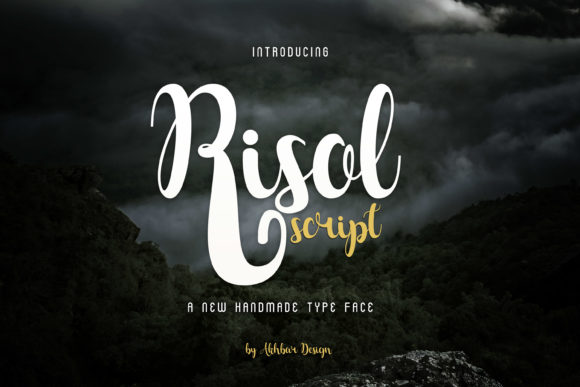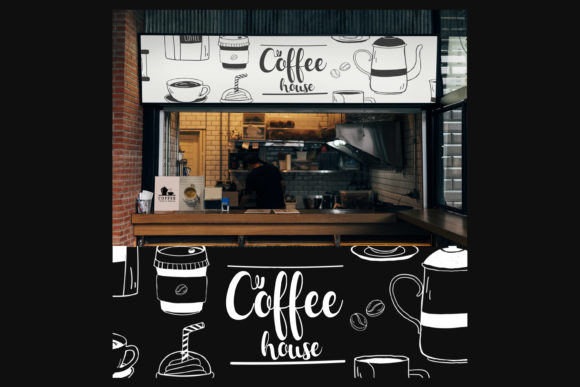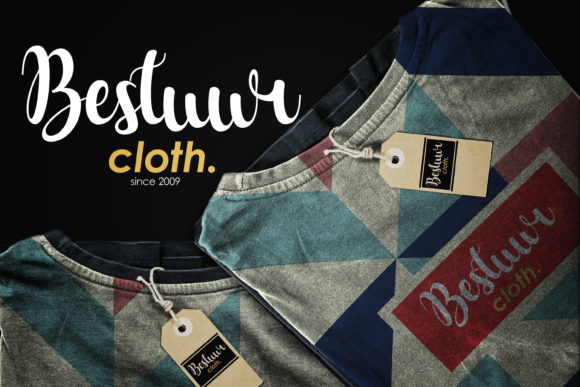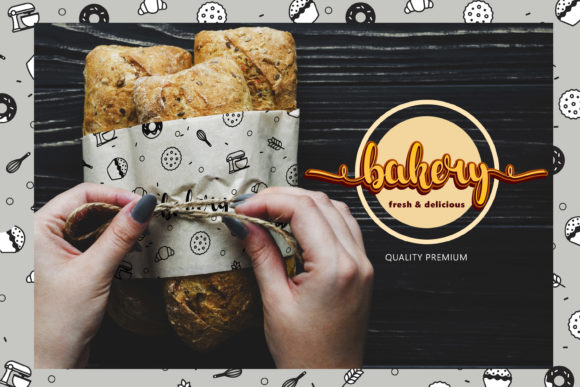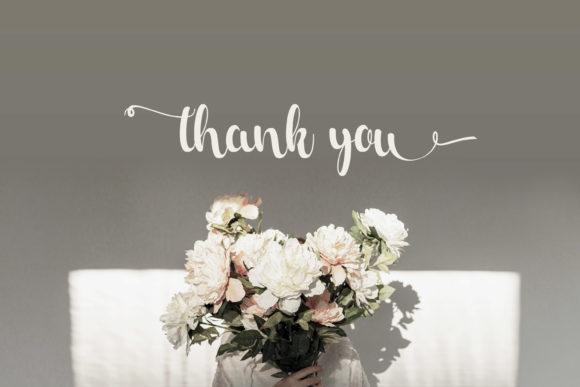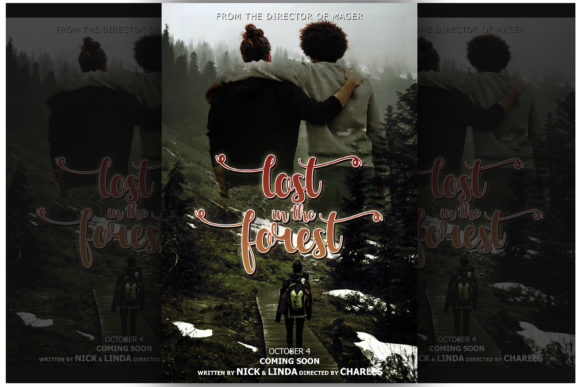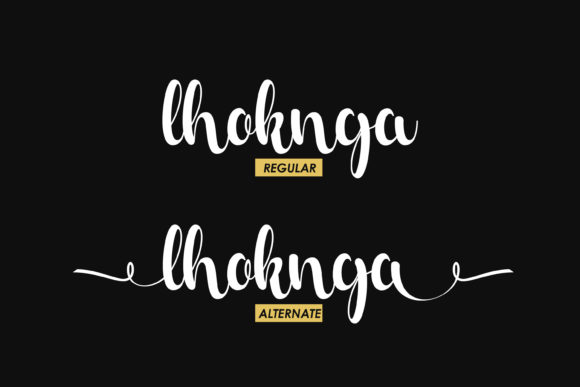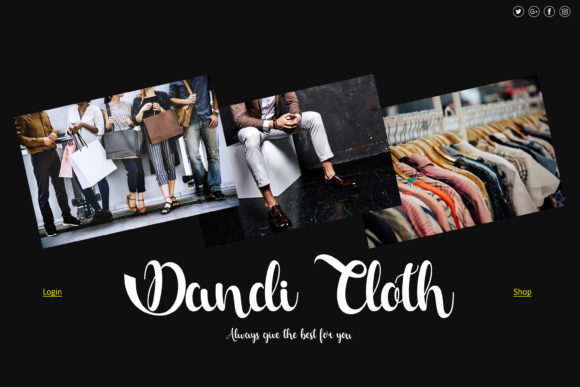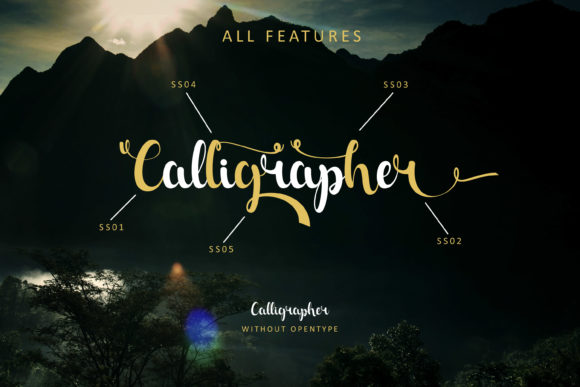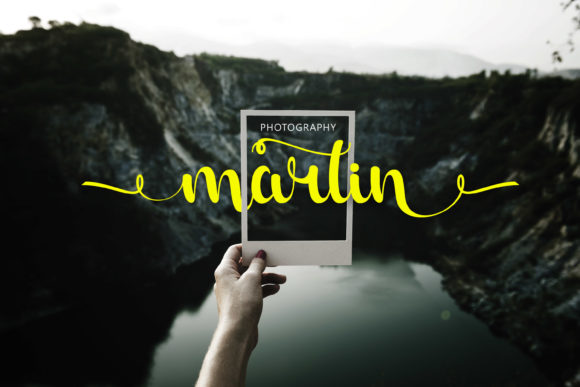
Risol Font
About Risol Font
Risol is a magical handwritten font carefully created with a touch of elegance. This font is the perfect fit for making original and outstanding designs.